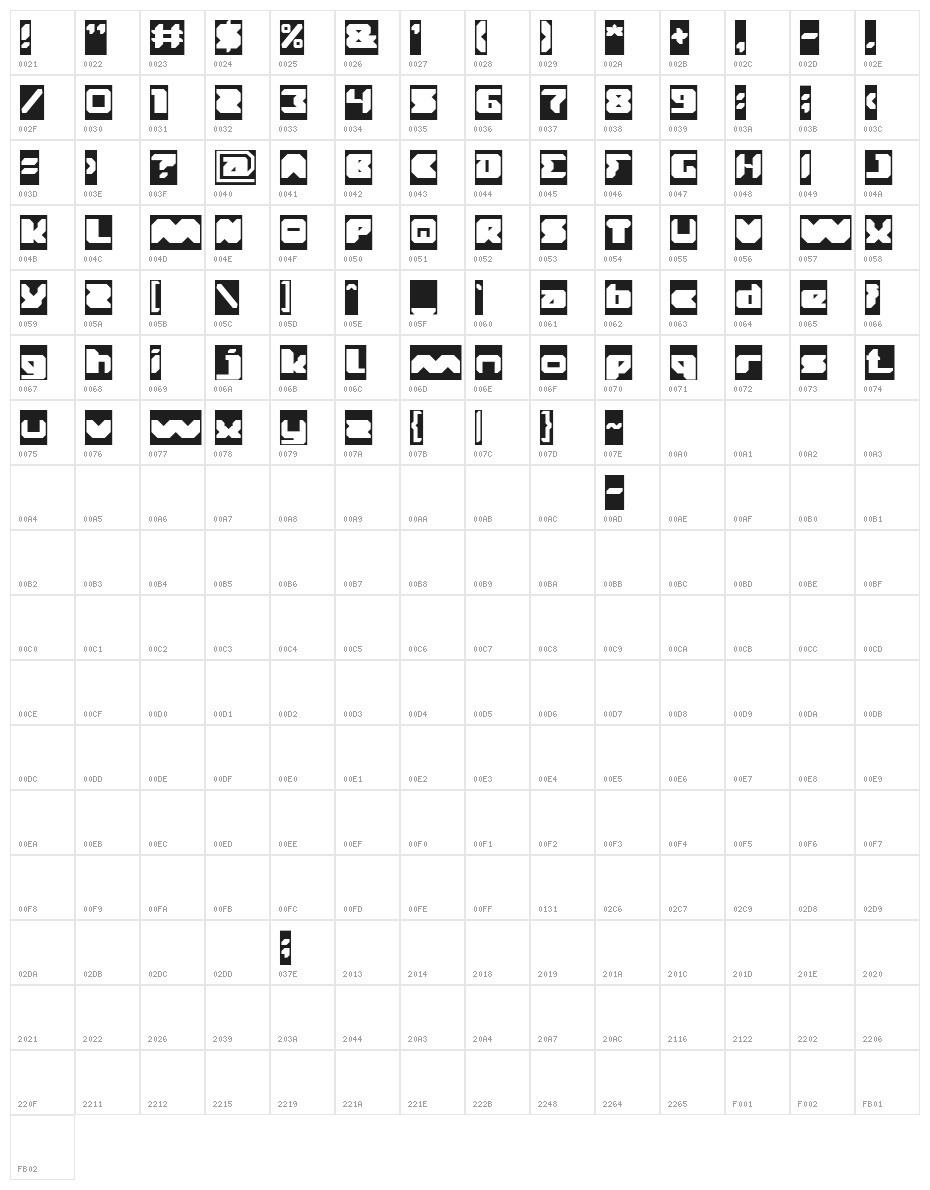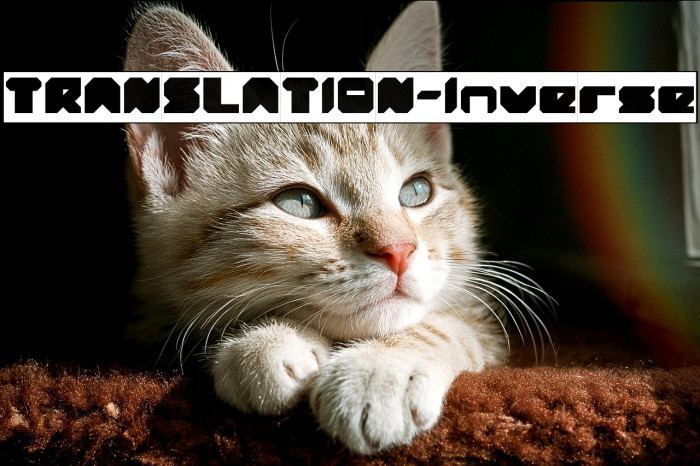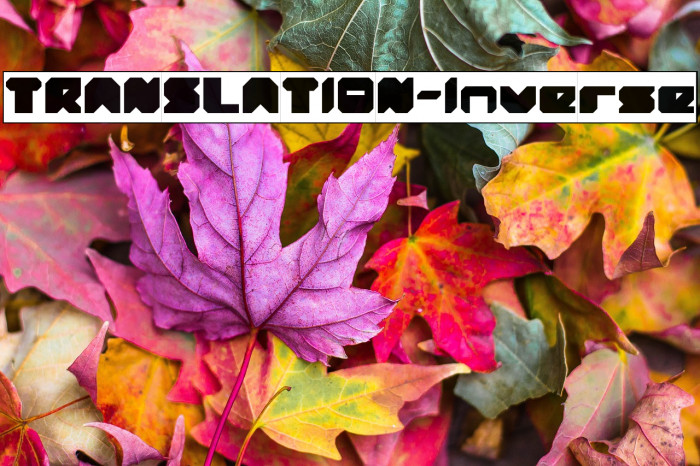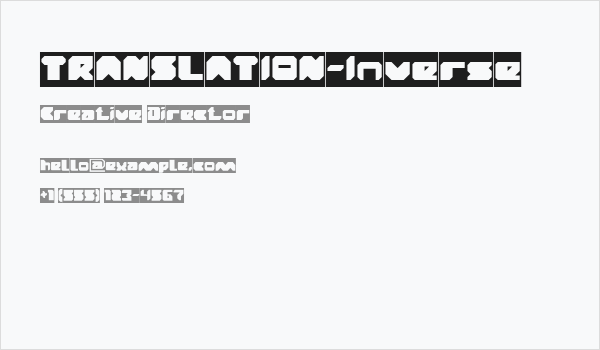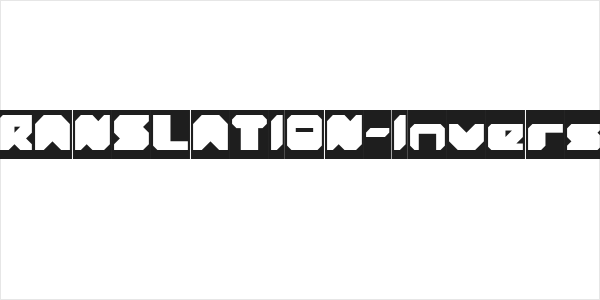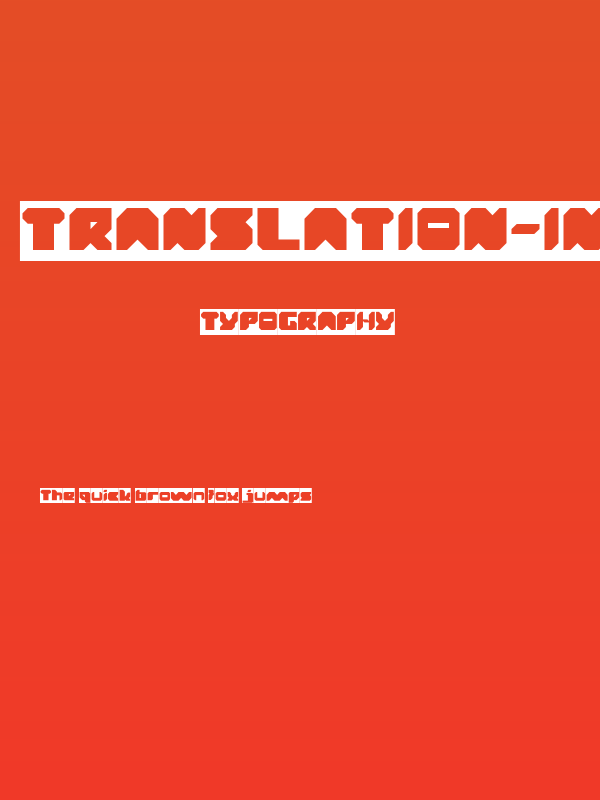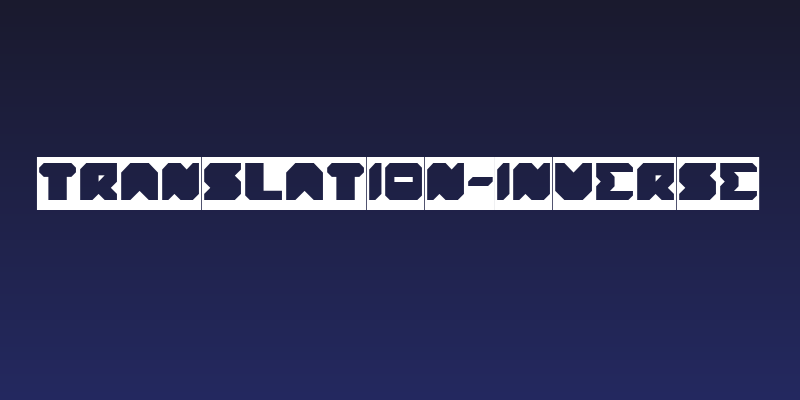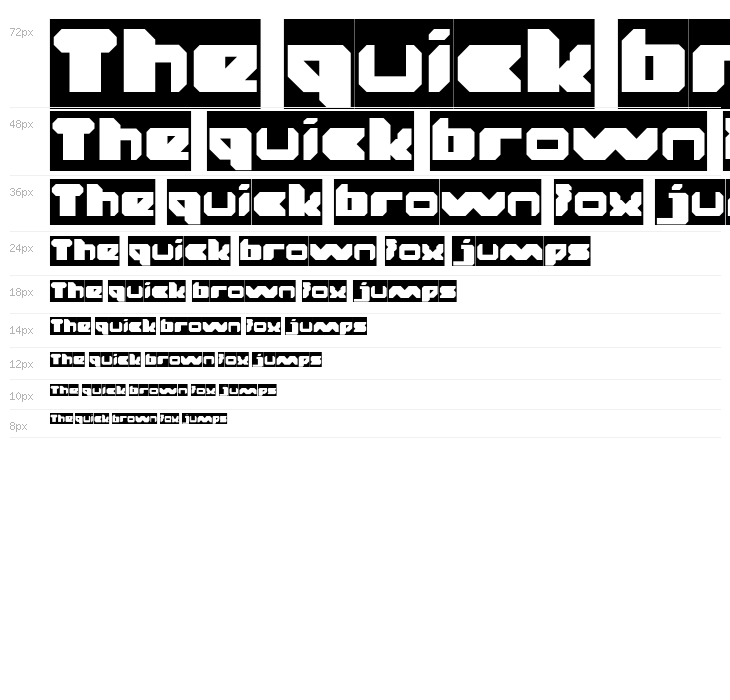
TRANSLATION-Inverse Font
TRANSLATION-Inverse Description
This font features a bold, geometric design with a strong emphasis on angular shapes and sharp edges. Each character is crafted with a unique, blocky style that gives it a futuristic and digital appearance. The uppercase and lowercase letters maintain a consistent width, creating a uniform look across the text. The numbers and special characters follow the same design principles, ensuring a cohesive visual identity. The font's high contrast between the thick strokes and the negative space enhances readability while maintaining its distinctive style.
| Use Case | Logos, Headlines, Posters |
| Proposed Projects | Ideal for digital art, video game titles, tech branding, and futuristic-themed posters. |